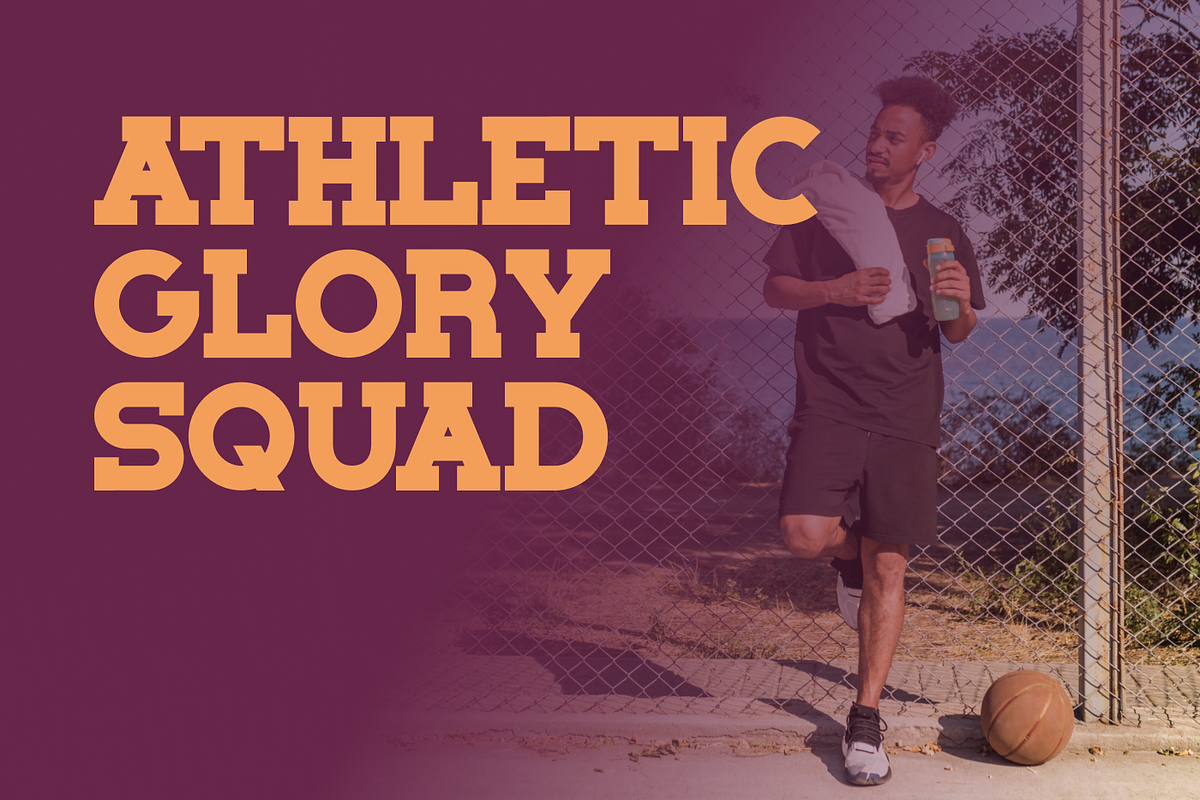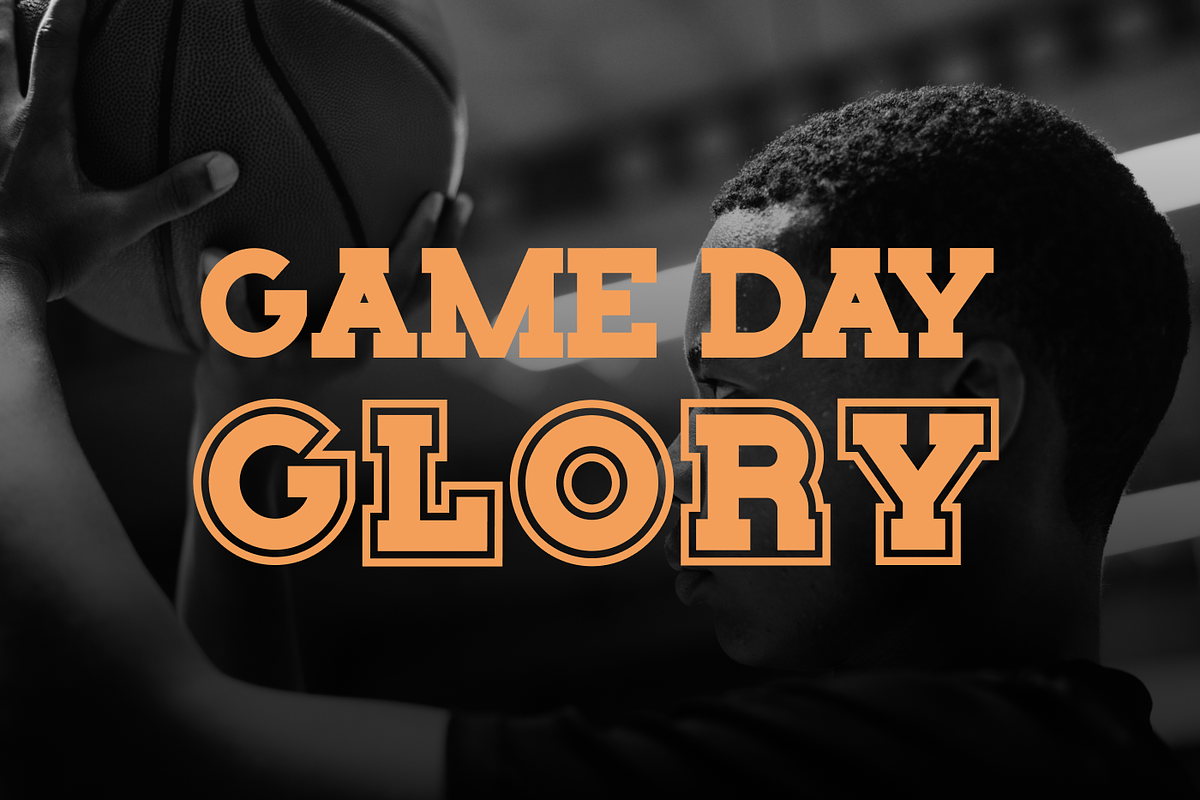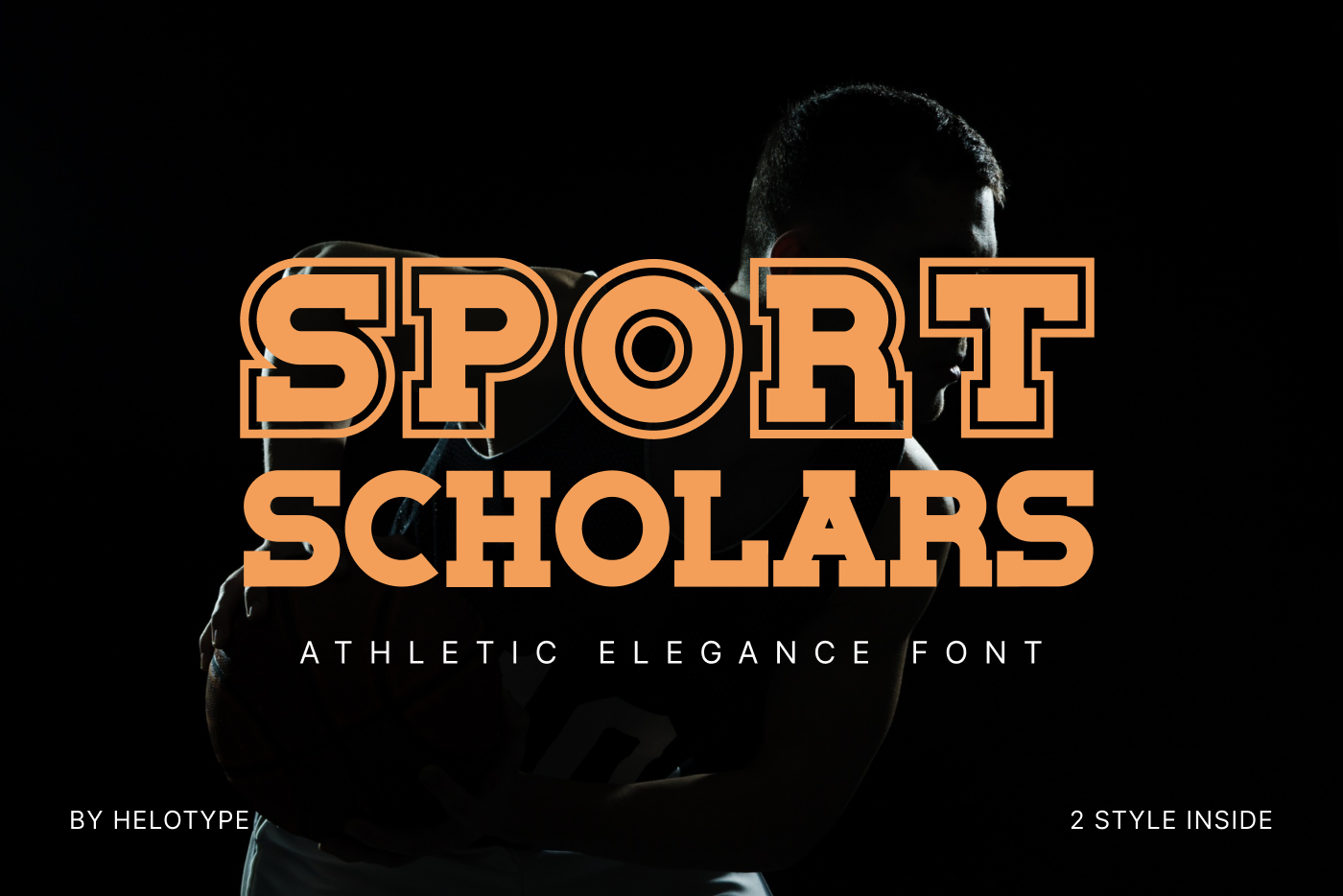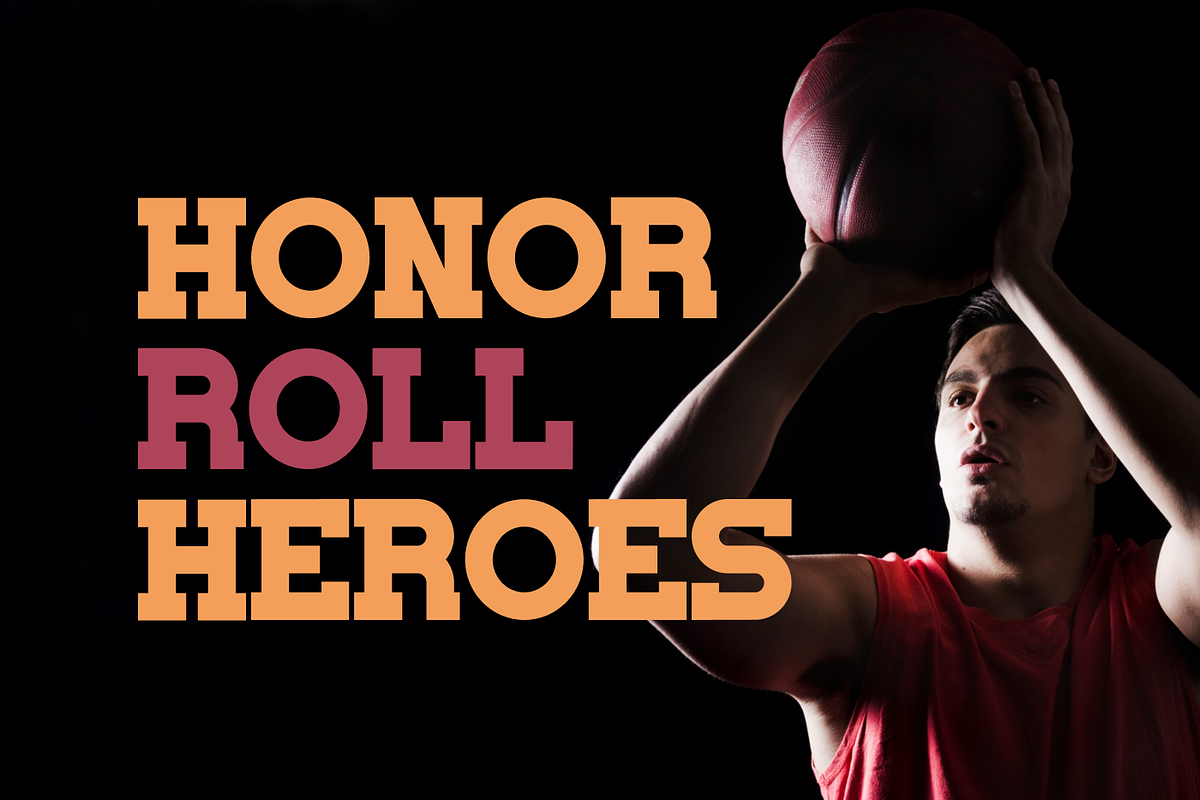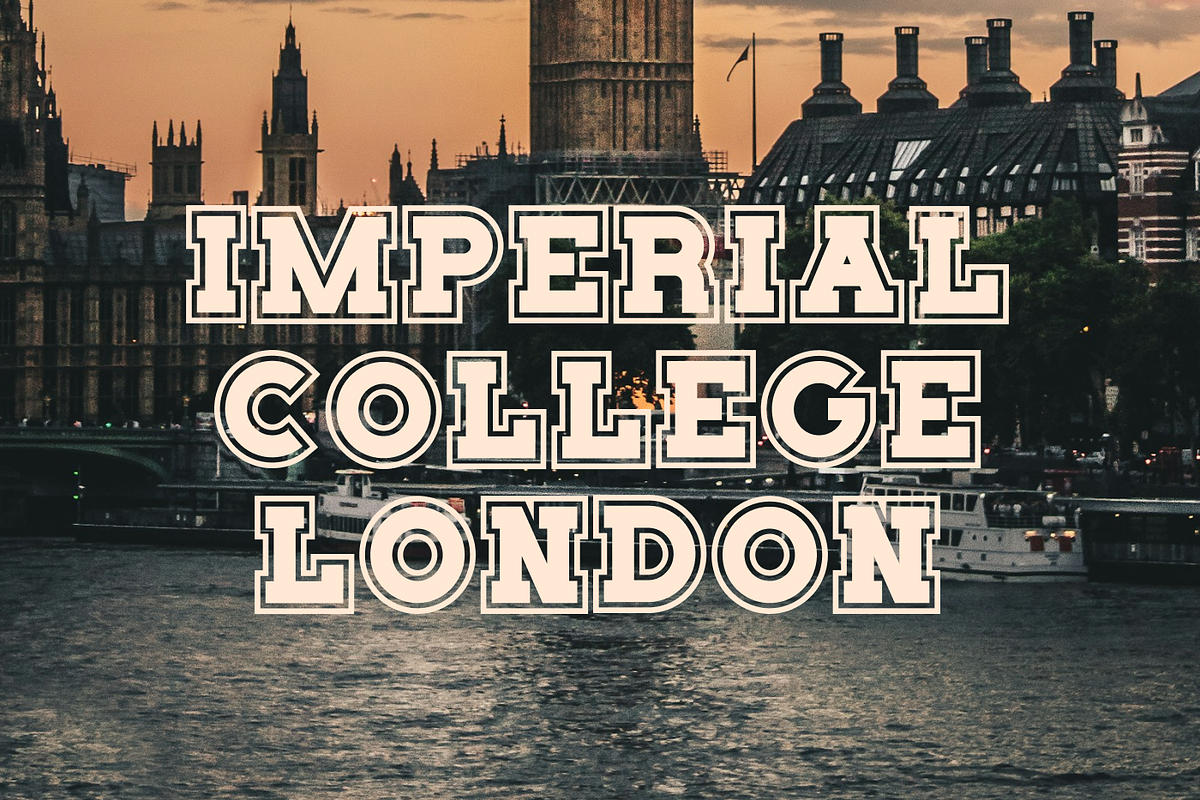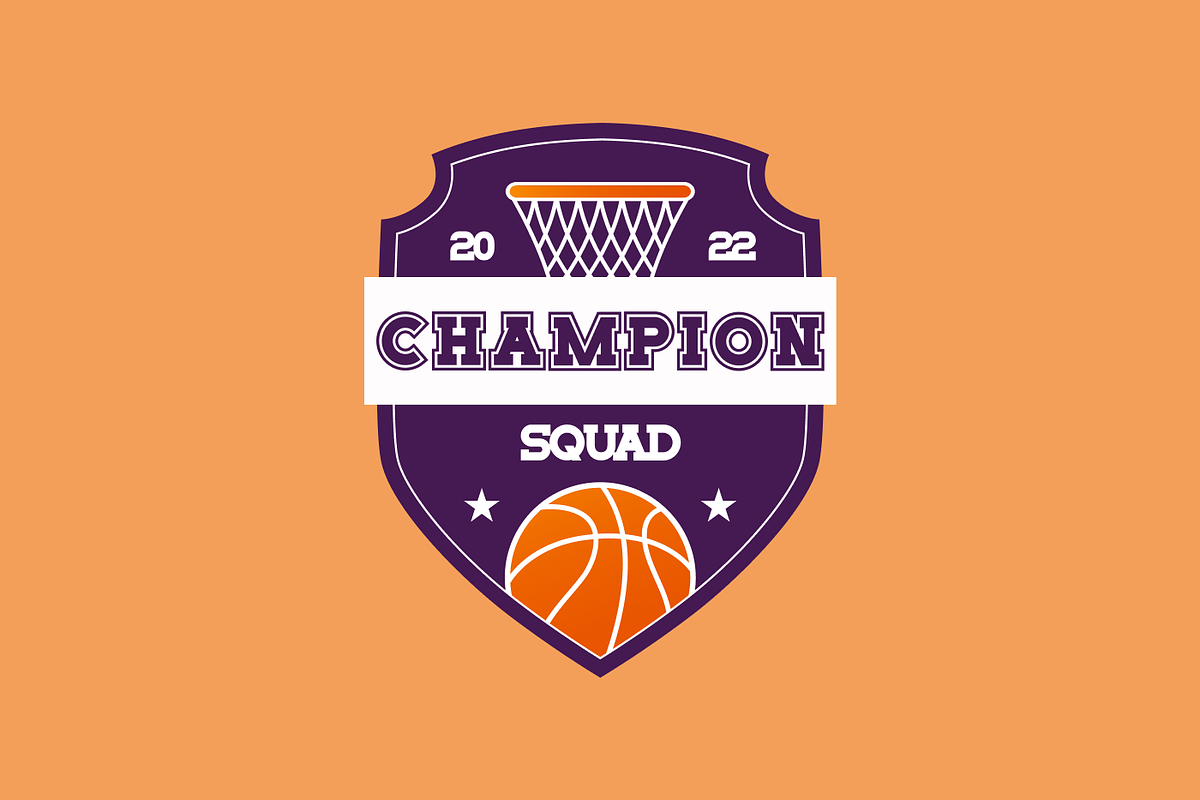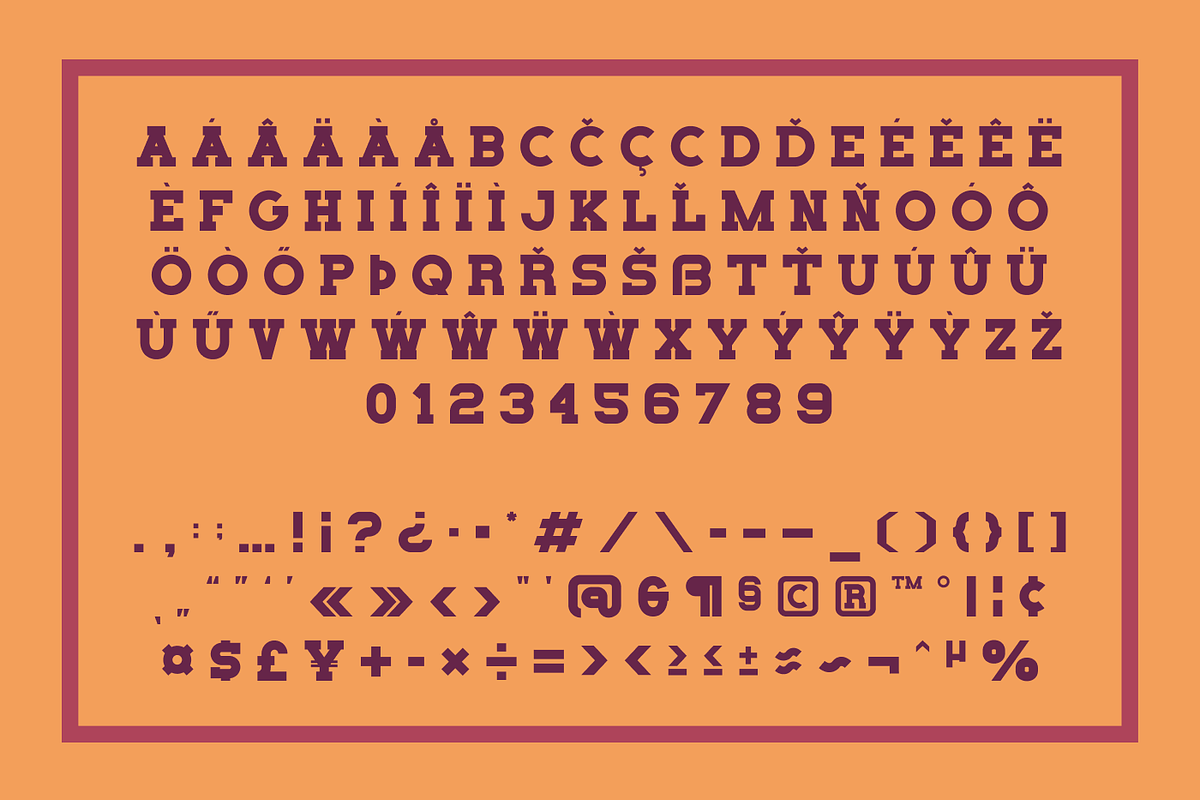
Sport Scholars - Athletic Font
Introducing Sport Scholars, a vibrant and dynamic font that ignites the spirit of athleticism. Its unique design expertly captures the exhilarating rush of the field, making it an impeccable choice for sports-oriented projects from posters to t-shirts, jerseys, and sports logos. Embellish your merchandise with Sport Scholars, or use it to bring a touch of sporty energy to advertising materials and websites. A playground for designers, this font is sure to infuse your creations with an irresistible athletic appeal.
- Outline & regular style
- Numerals and punctuation